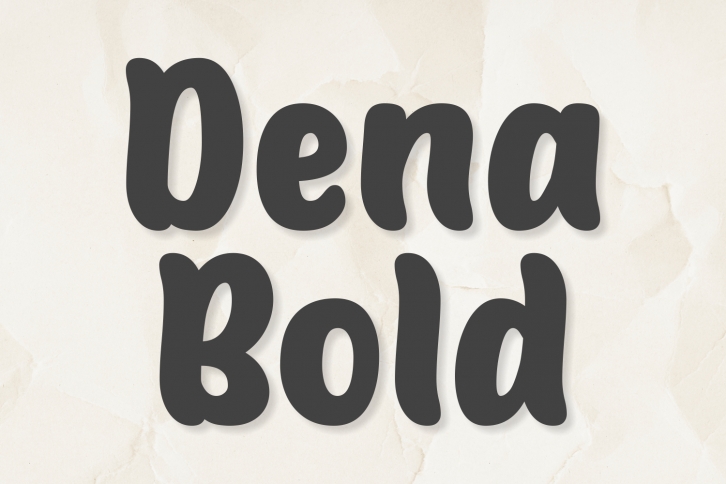
Dena Bold is a cool paint brushed handwritten font. Whether you are using it for cartoon-related designs, children games, quotes, titles, brand names, book covers, posters, or just any creation that requires a touch of joy, this font is a great choice.